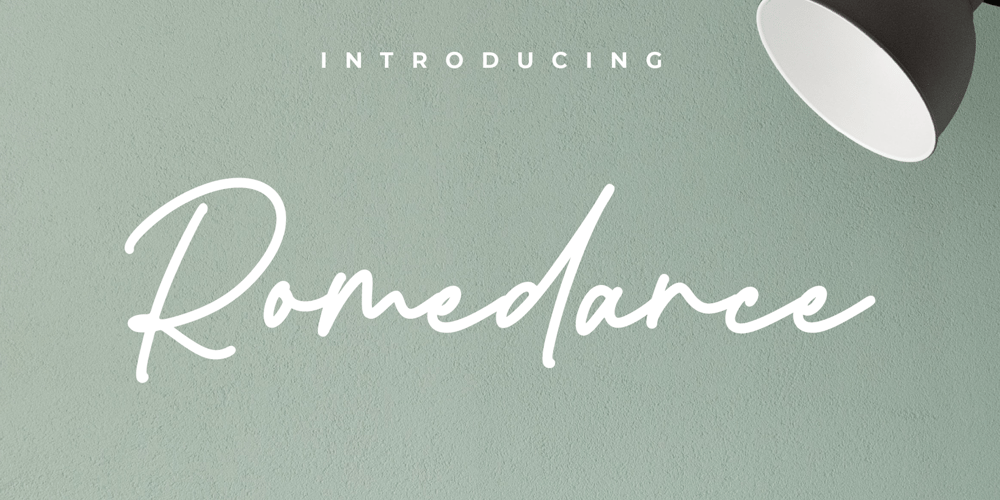
Romedance Font Family was designed by Revo Farsiky and published by Pen Culture. Romedance contains 1 styles and family package options. Please welcome our newest font Romedance. An elegant signature with a beautiful alternate that you can easily combine. it’s clean and elegant for logos, brand, wedding invitations, quotes, advertisements, and more. Romedance is equipped with beautiful caps, punctuation, number. this font is also multilingual language.What inside:Follow my shop for upcoming updates including additional glyphs and language support. And Please message me if you want your language included or If there are any features or glyph requests, feel free to send me a message, I would like to update it.Thank you